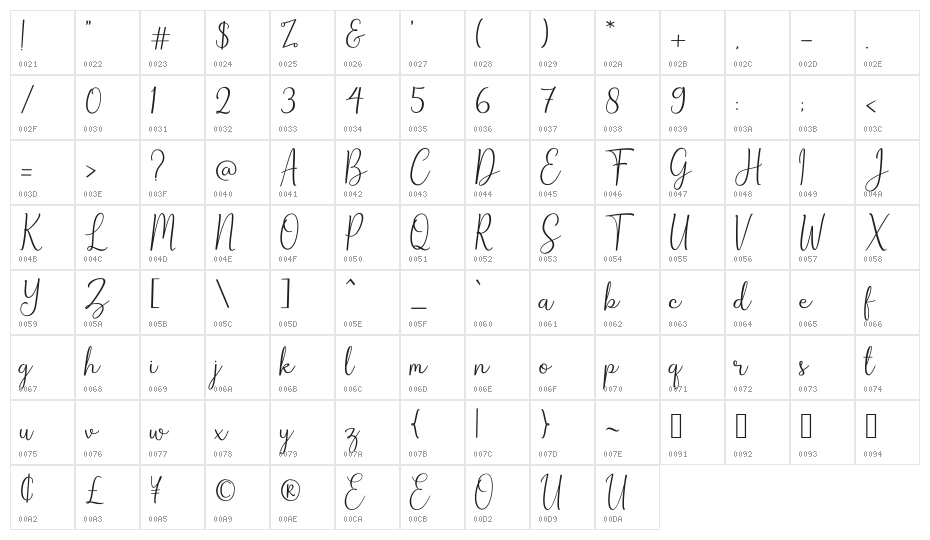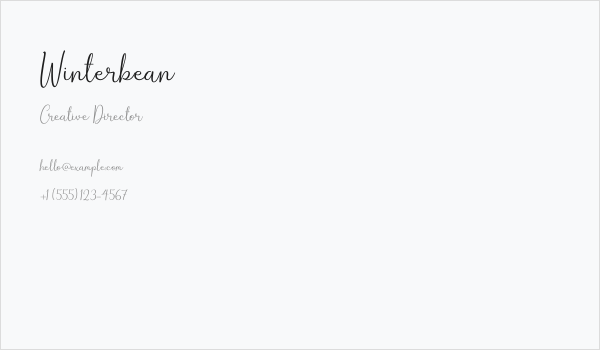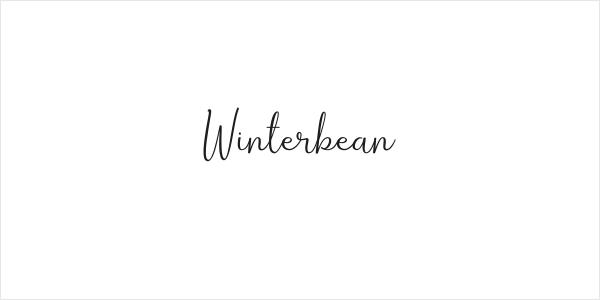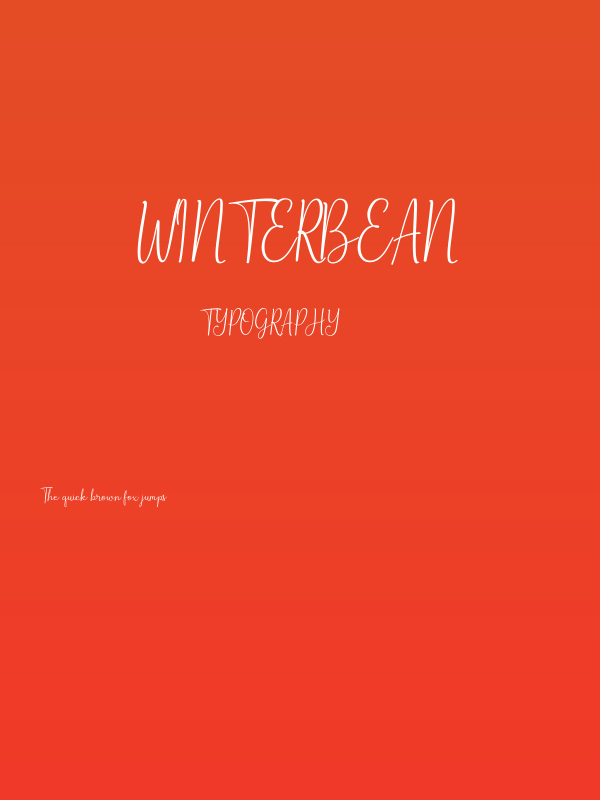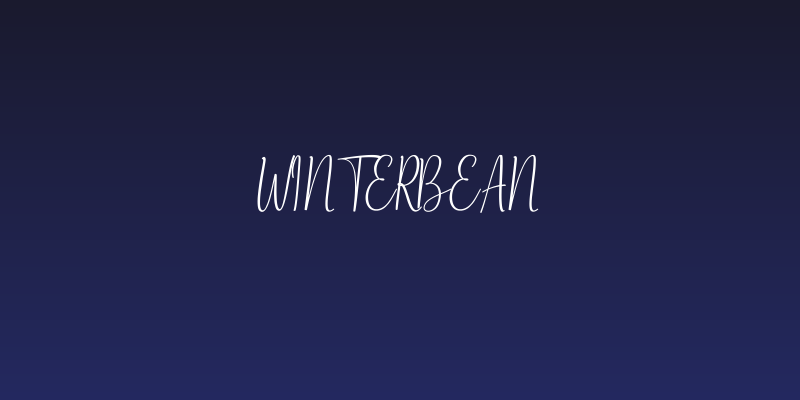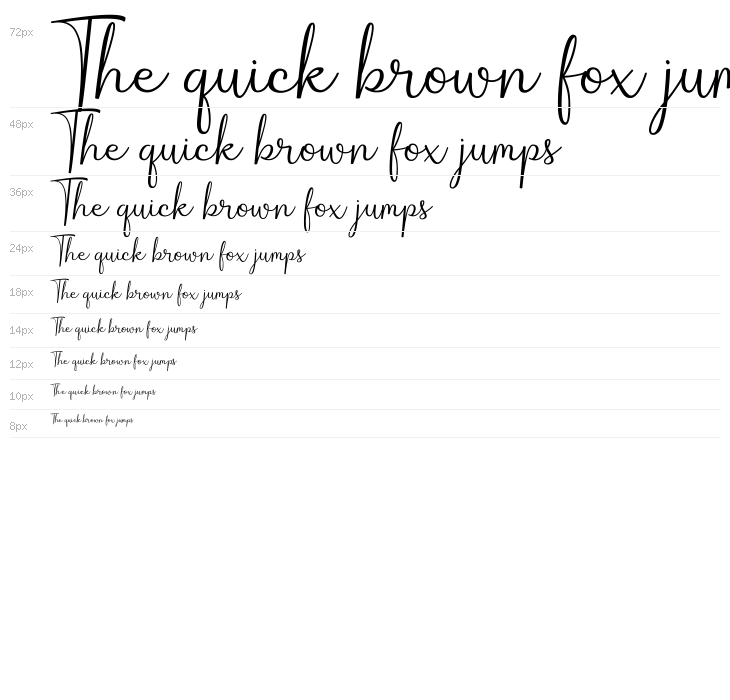
Winterbean Font
Winterbean Description
This font features a playful and elegant script style with a handwritten feel. The uppercase letters are tall and slender, with graceful loops and curves that add a touch of sophistication. The lowercase letters maintain a consistent flow, enhancing readability while preserving the artistic flair. Numbers are clear and rounded, complementing the overall aesthetic. Special characters are thoughtfully designed, ensuring they blend seamlessly with the rest of the font. This font is ideal for projects that require a personal and creative touch, such as invitations, greeting cards, and branding materials.
| Proposed Projects | Ideal for invitations, greeting cards, branding materials, and creative projects. |